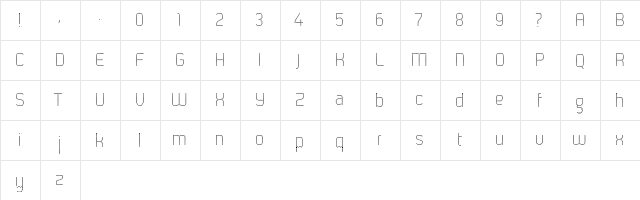
Redonda Regular
| Designer | jmarquez |
Design Context for Redonda Typeface
Redonda offers clean, dependable letterforms without strong stylistic allegiance, making it a practical choice for designers who need flexibility.